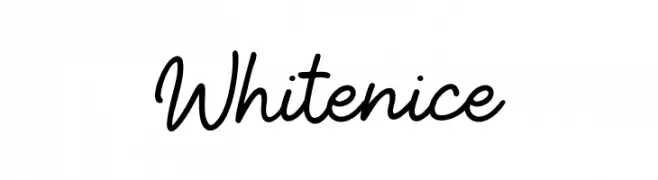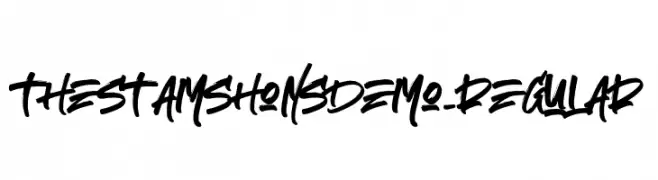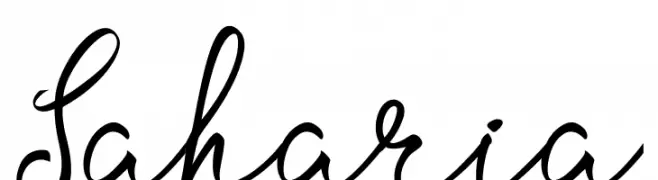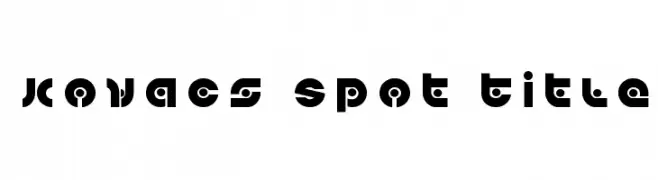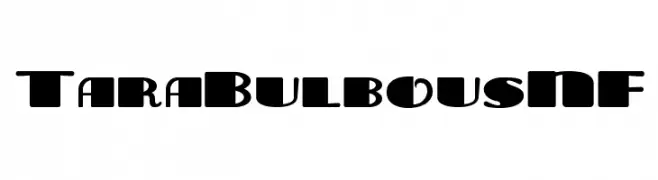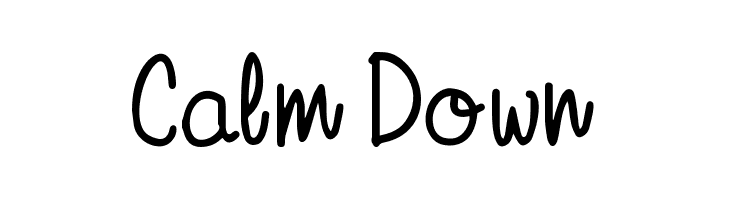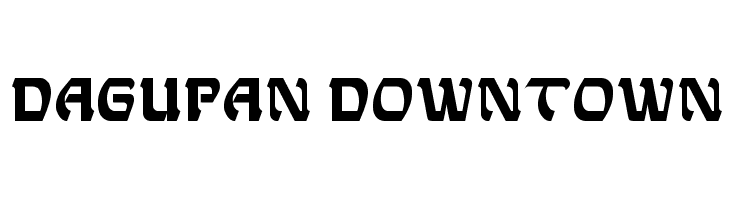
A playful, hand-drawn font with irregular strokes and a casual, informal style.
A cursive, handwritten-style font with smooth, connected characters.
A bold, decorative font with alien and robot motifs for a playful, futuristic look.
A bold, dynamic handwritten font with expressive strokes.
A bold, serif font with sharp, angular serifs and a commanding presence.
A lively, handwritten script font with flowing, connected letters.
A bold, geometric font with a modern and abstract design.
A bold, playful font with exaggerated curves and a retro-modern appeal.